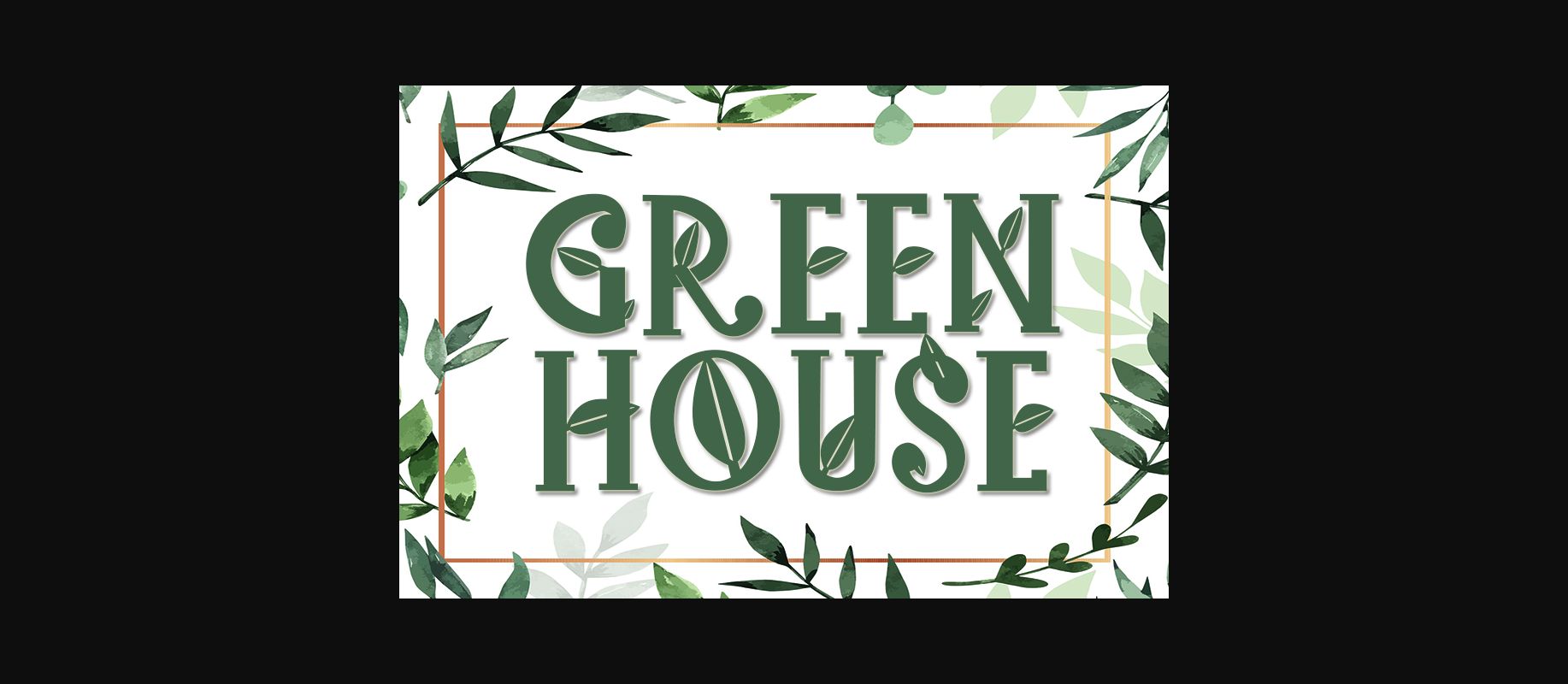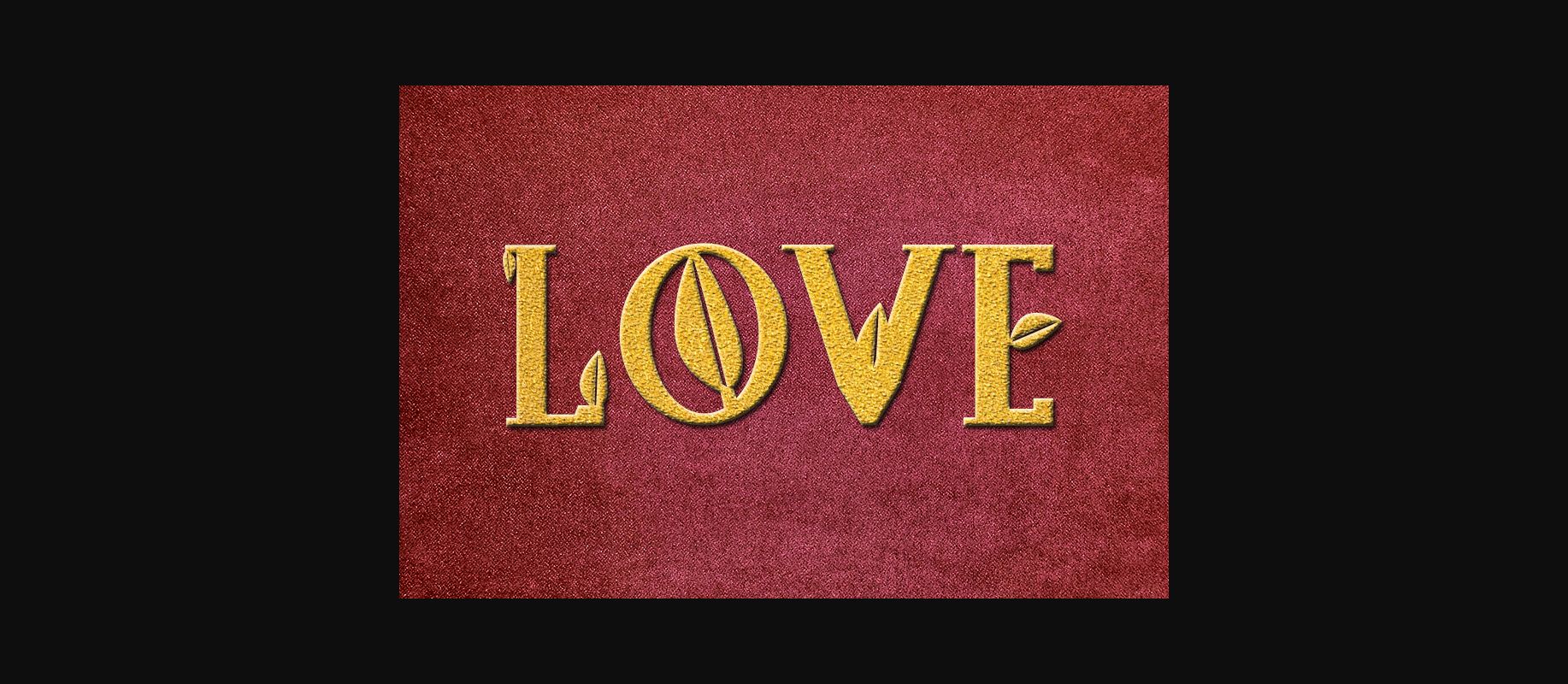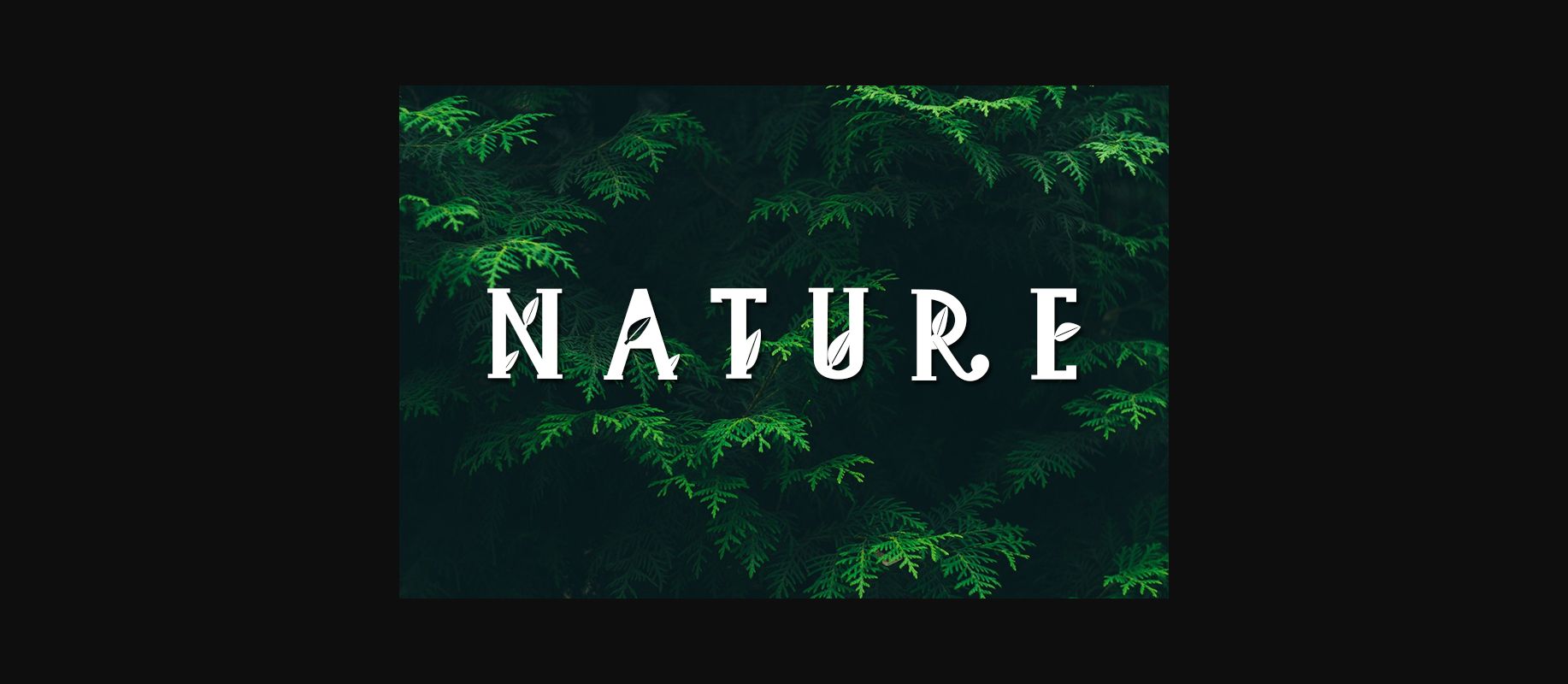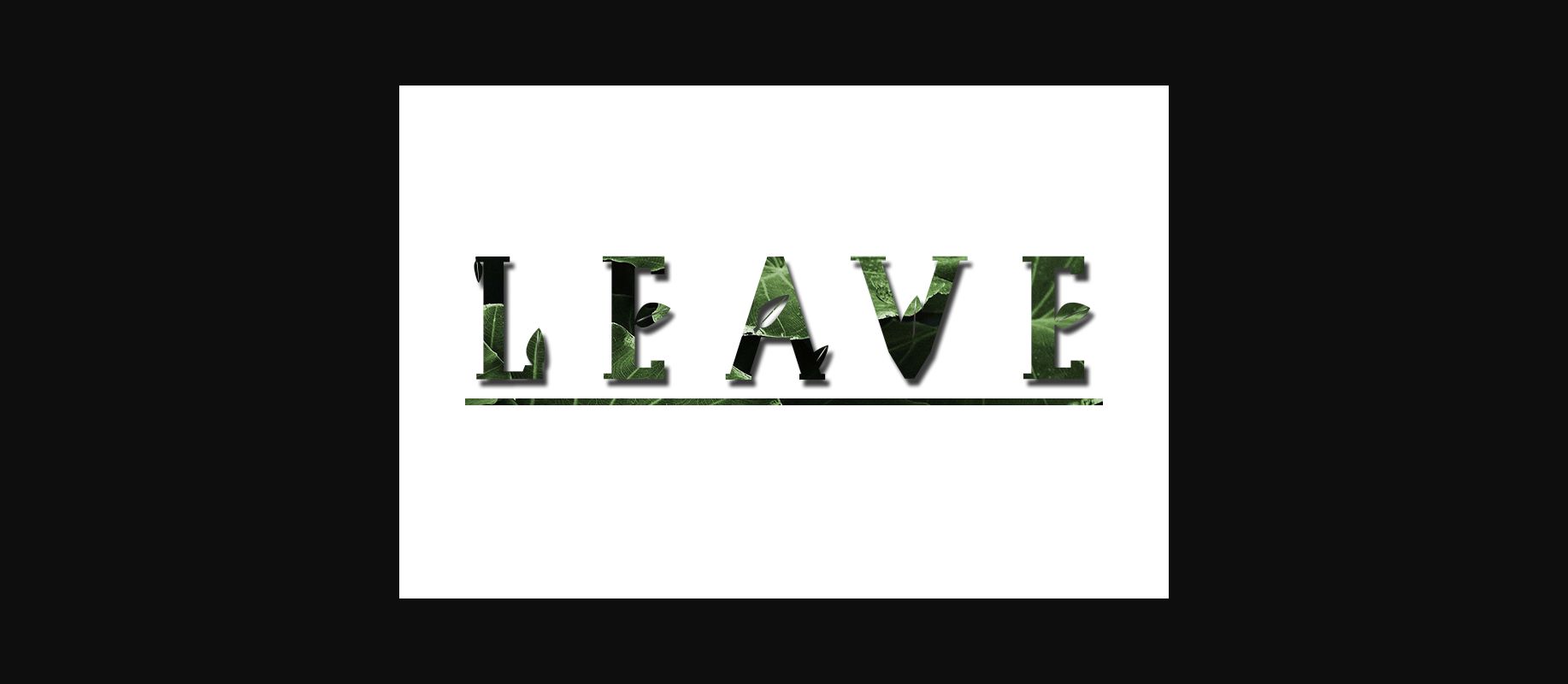
About Green House Font
Create gorgeous and timeless designs with Green House, an interesting and unique decorative font.
Fall in love with its incredibly stylish look and use it for logos, quotes, invitations, business cards, power point presentations, and more!